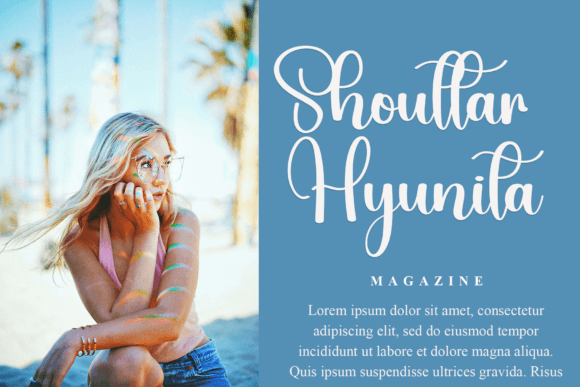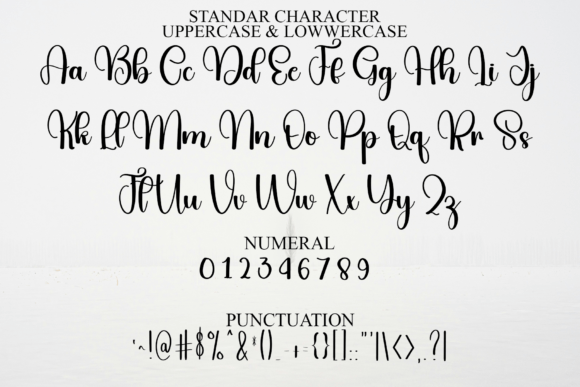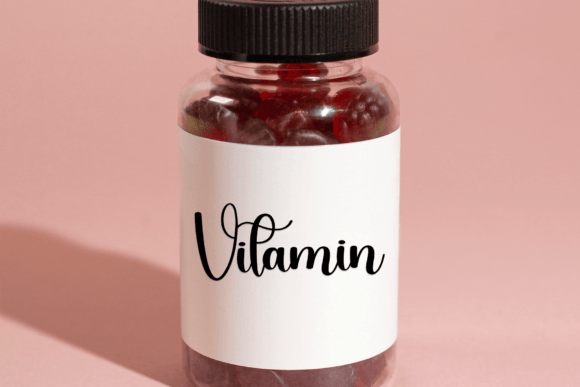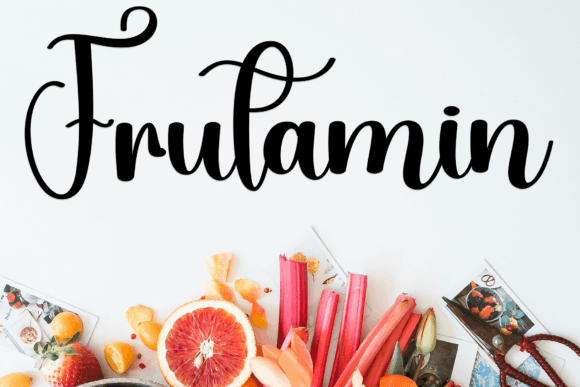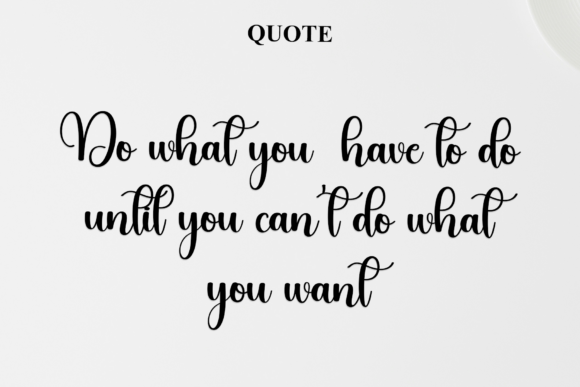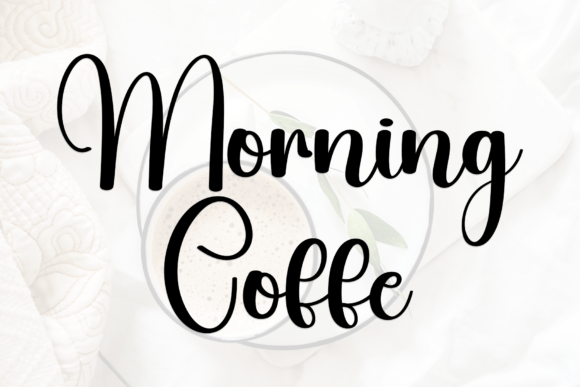
Unlock the Secret to Captivating Designs: Introducing Beauty Morning Font
Have you ever been stuck in a design rut, scrolling through social media, and suddenly a post catches your eye because of its effortless charm? That’s the magic of a well-crafted design, and for many designers, it’s the perfect blend of personality and polish that makes all the difference. If you’re looking to add a dash of whimsy to your next project, you’re in luck – we’re about to introduce you to a font that’s sure to become your new go-to.
Meet Beauty Morning Font, a casual script font that embodies the warmth and friendliness we all strive for in our designs. With its rounded, playful strokes, this font is perfect for personal projects, invitations, and social media graphics that need a little extra oomph. Whether you’re a seasoned designer or just starting out, Beauty Morning Font is a valuable addition to your toolkit – and its charming, hand-drawn aesthetic is sure to delight your clients and audience alike.
Beauty Morning Font Key Features
- Unique Characteristics: Beauty Morning Font features a unique blend of elegant and modern design elements, with intricate details and subtle nuances that add a touch of sophistication to any text.
Beauty Morning Font Review
Overall, I’d say the Beauty Morning Font is a lovely addition to any design project. ✨ It’s playful, elegant, and perfect for capturing a relaxed yet refined vibe. The rounded edges and subtle curves give it a soft, approachable feel that’s hard to resist.
- ✨ Beautifully rounded edges and curves for a soft, approachable feel.
- ✨ Elegant and refined, perfect for high-end or luxury branding.
- ✨ Great for creating a relaxed, yet sophisticated atmosphere.
- ⚠️ The font might be a bit too playful for more serious or corporate branding.
- ⚠️ Some characters may appear slightly irregular or inconsistent, which can be distracting.
- ⚠️ The font’s versatility is limited, making it less suitable for a wide range of projects.
While the Beauty Morning Font has its limitations, I still think it’s a great choice for the right projects. With careful use and consideration, it can add a touch of elegance and sophistication to any design. Just be mindful of its potential drawbacks and use it thoughtfully.
Beauty Morning Font Practical Application Guide
Beauty Morning Font is ideal for Canva projects such as social media graphics, blog posts, and marketing materials.
Beauty Morning Font is ideal for Adobe projects such as logos, branding materials, and print designs.
Beauty Morning Font is ideal for PowerPoint and Word projects such as presentations, reports, and documents.
Getting the Most Out of Beauty Morning Font
For optimal results, use Beauty Morning Font in combination with other elegant fonts and high-quality images.
Experiment with different font sizes, colors, and styles to create a unique and captivating design.
Can I customize the Beauty Morning Font for my specific design needs?
Yes, the Beauty Morning Font is a variable font, allowing for customization through the OpenType feature ‘gdef’ (glyph definition). You can use font editing software or design applications that support variable fonts to create custom styles and variations.